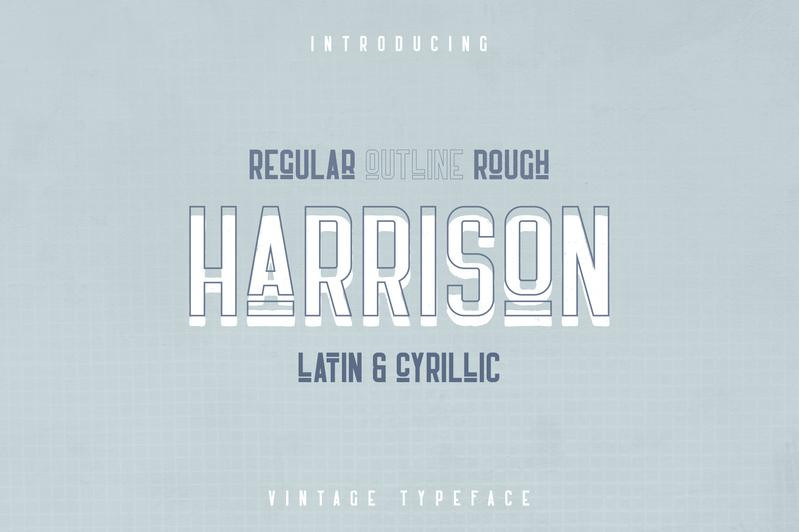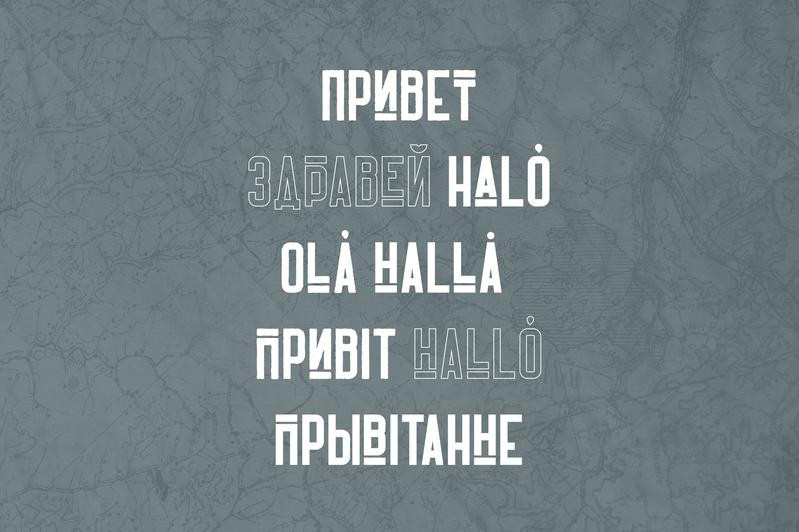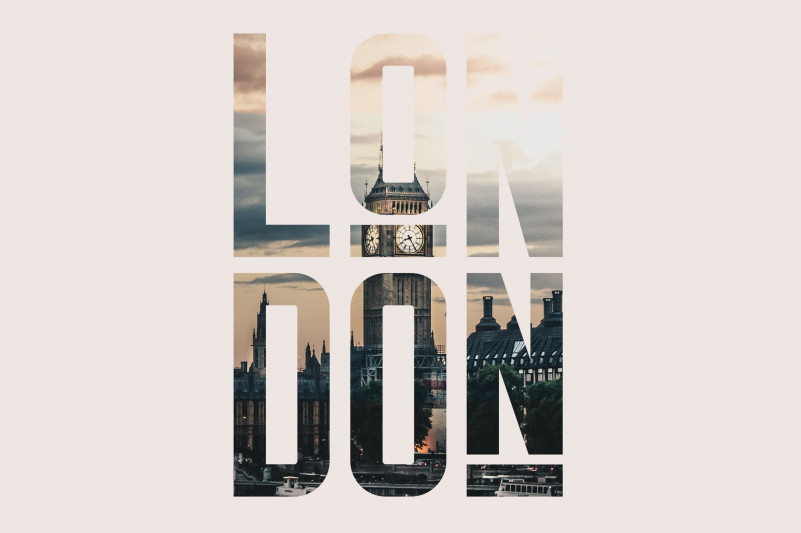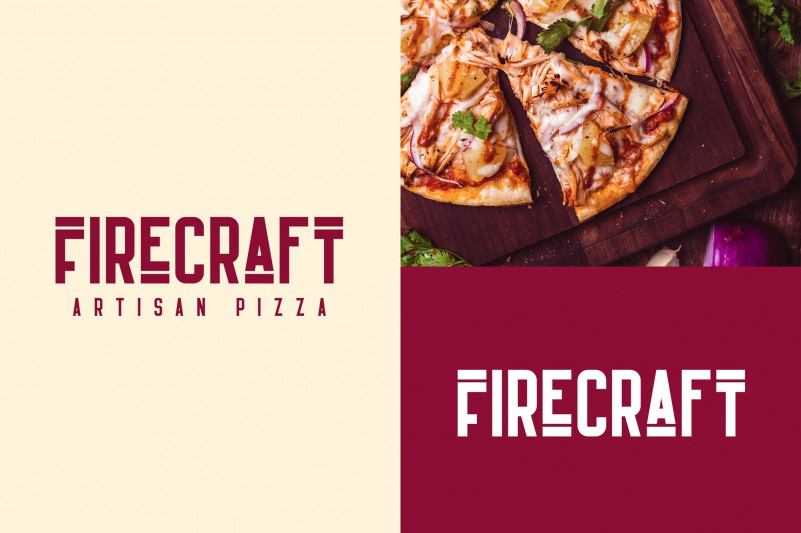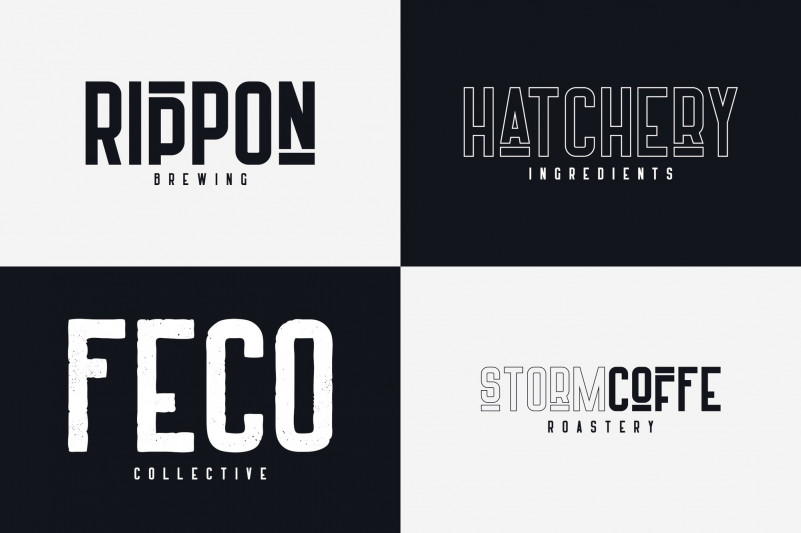
Harrison Retro Font
Harrison Retro Font – latin and cyrillic is retro, bold typeface with latin and Cyrillic support, includes regular, outline, rough versions and multilingual support. It’s a very versatile font that works great in large and small sizes.
Harrison Retro Font is perfect for branding projects, home-ware designs, product packaging, magazine headers – or simply as a stylish text overlay to any background image.
• Uppercase, lowercase, numeral, punctuation & Symbol
• Cyrillic support – Russian, Ukrainian, Bulgarian and more
• Regular, outline, rough versions
• Multilingual support